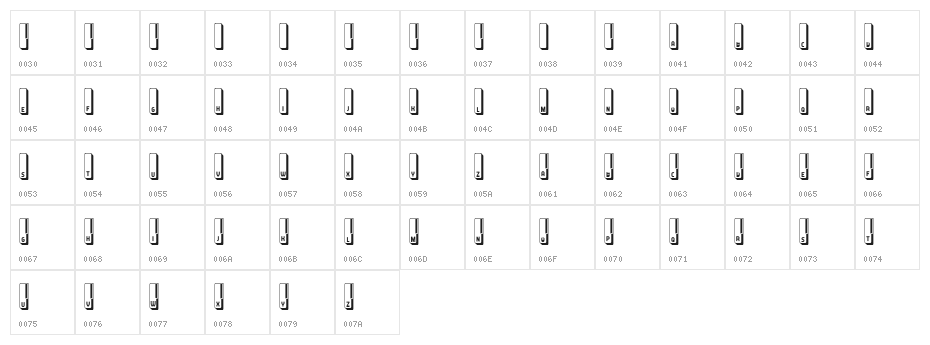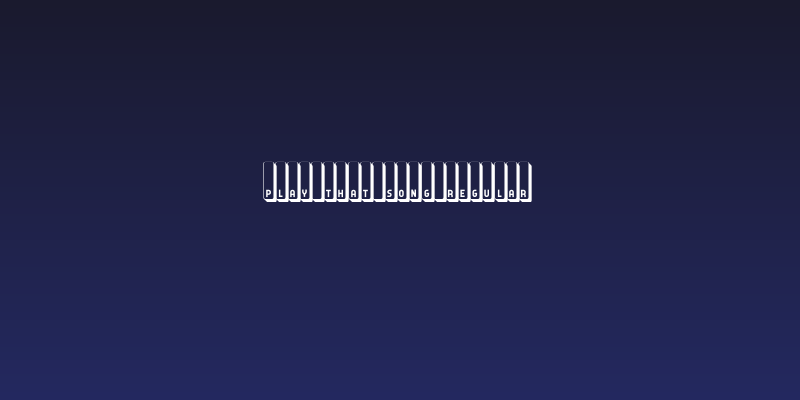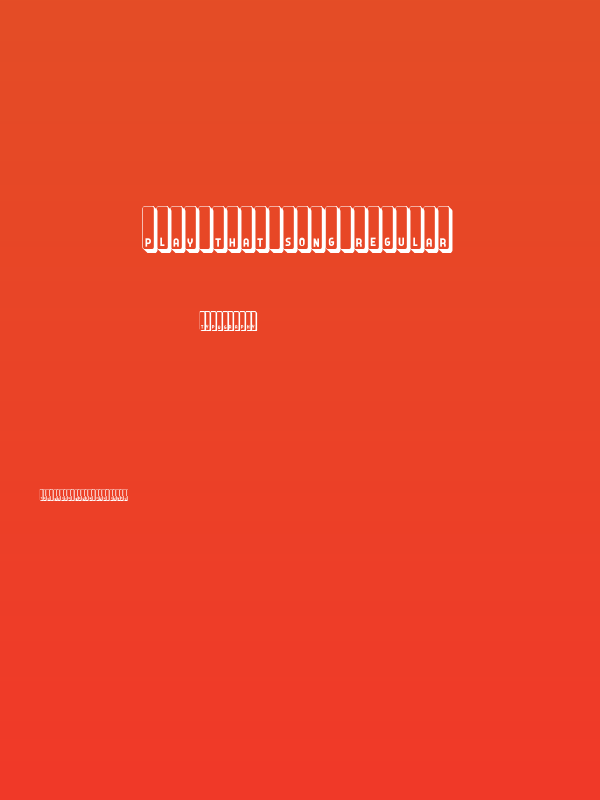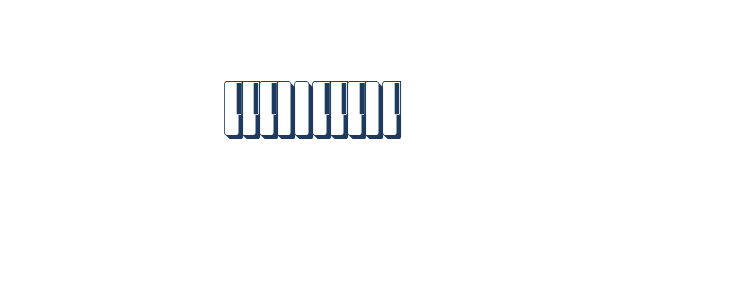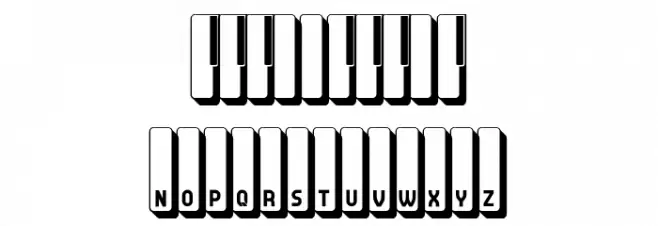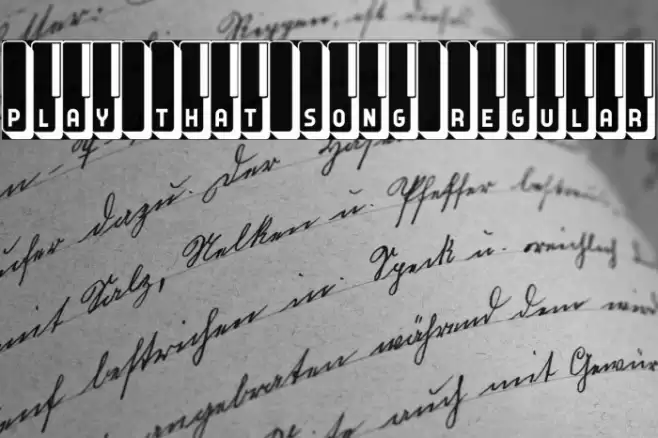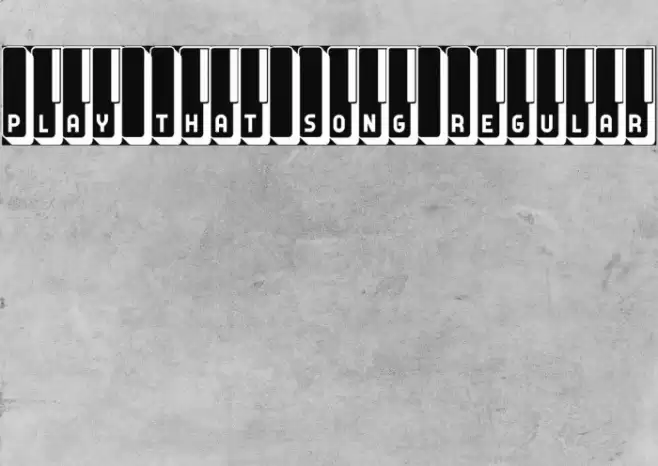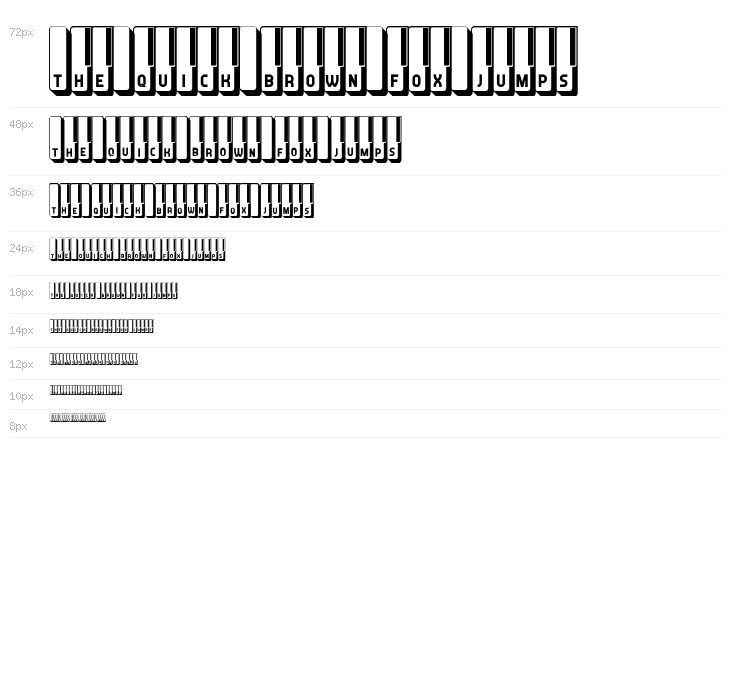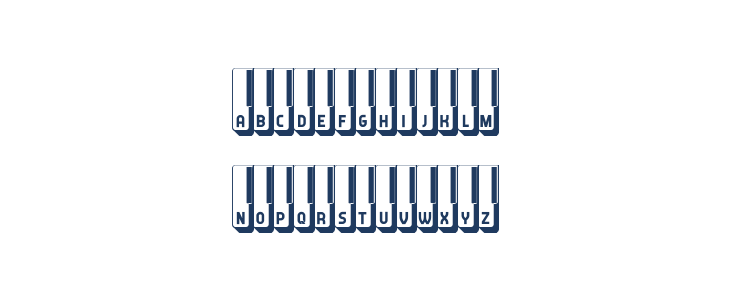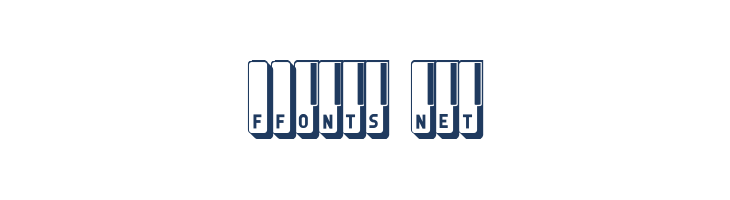
Play That Song Regular Font
Play That Song Regular Description
This font features a playful, musical theme with each character designed to resemble piano keys. The letters are bold and blocky, with a three-dimensional effect that gives them a striking appearance. The uppercase and lowercase letters maintain a consistent style, while the numbers and special characters are integrated seamlessly into the design. The font's unique aesthetic makes it ideal for creative projects that require a fun and engaging visual element.
| Use Case | Logos, Posters, Creative Titles |
| Proposed Projects | Ideal for music-related projects, children's books, playful branding, and creative posters. |